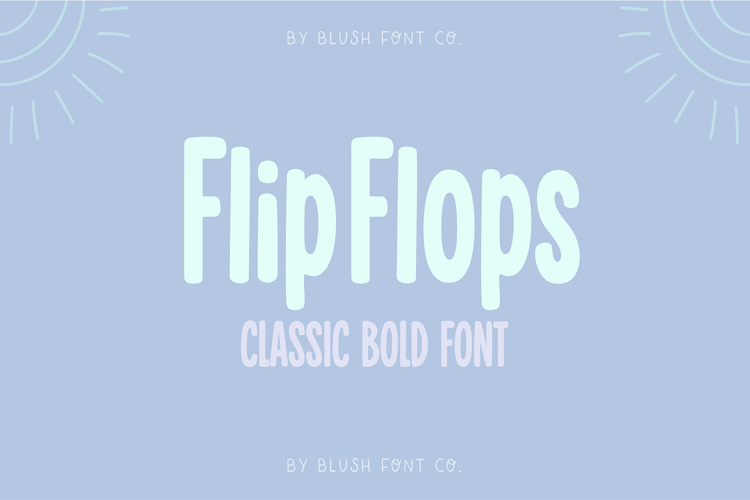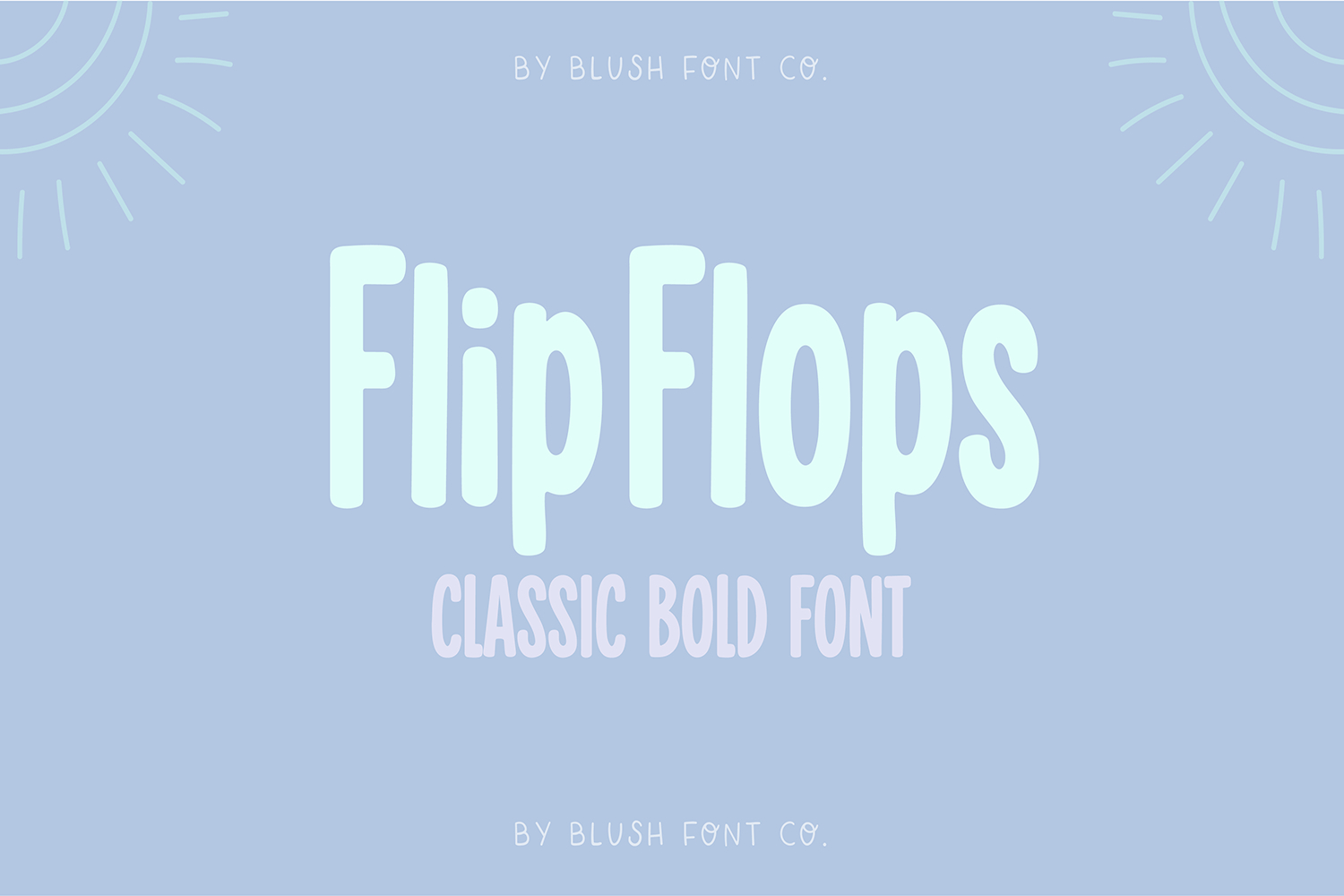
"Flip Flops" a Tall and chunky display font.
This font is a trendy handlettered display font that is perfect for social media or crafty projects. Use it for branding, crafts for decor, invitations, and more!